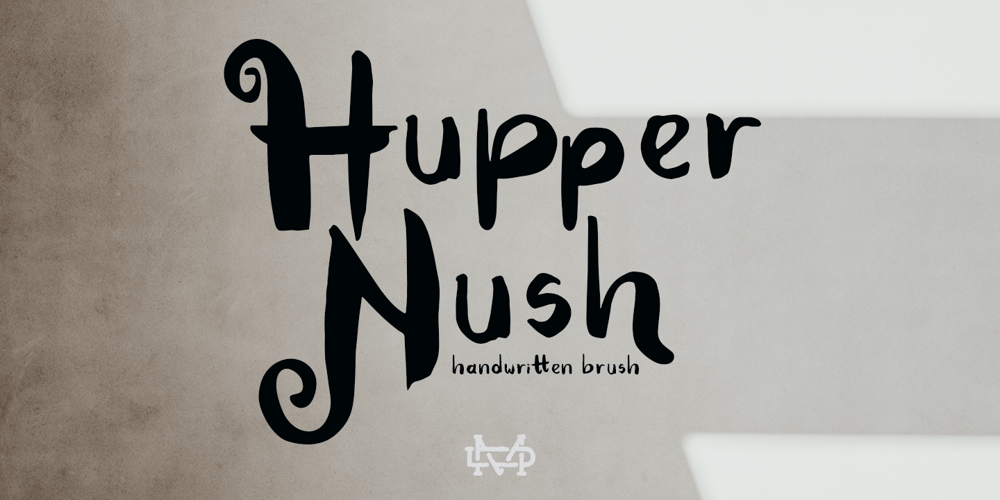
Hupper Nush
Hupper Nush font
Hupper Nush Font Family was designed by madededuk and published by madeDeduk. Hupper Nush contains 1 styles and family package options. Really excited to introduce Hupper Nush is a bold handwriting font with cool character! Hupper Nush will be perfect for all your designs project.Hupper Nush Included: Uppercase Lowercase Number & Symbol International Glyphs Ligature Hope you enjoy it.